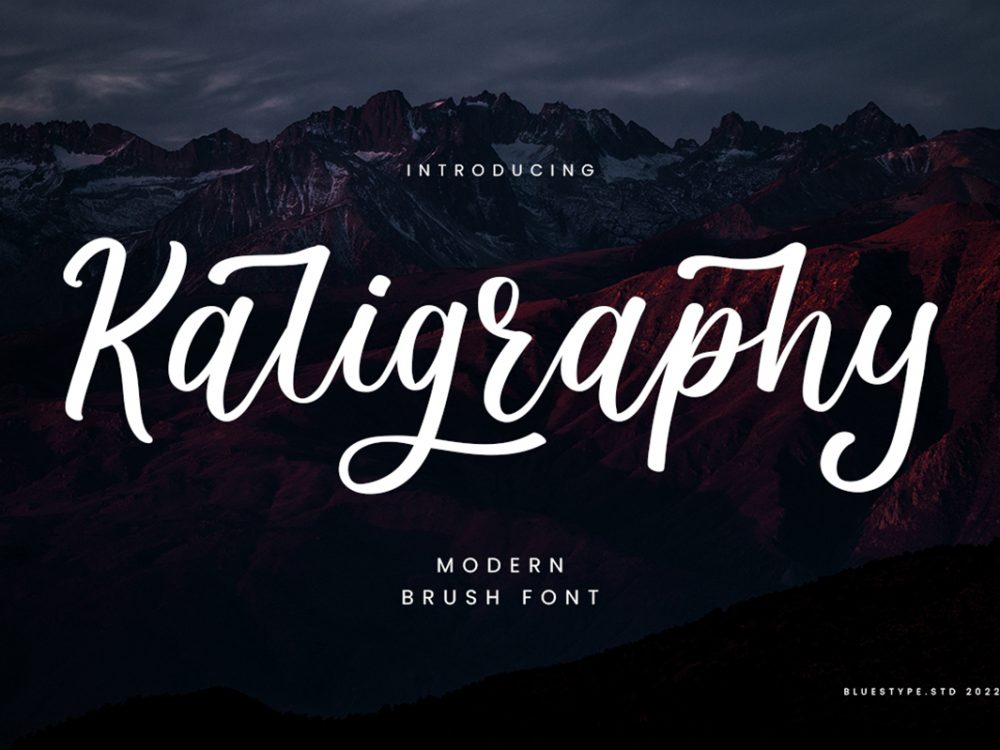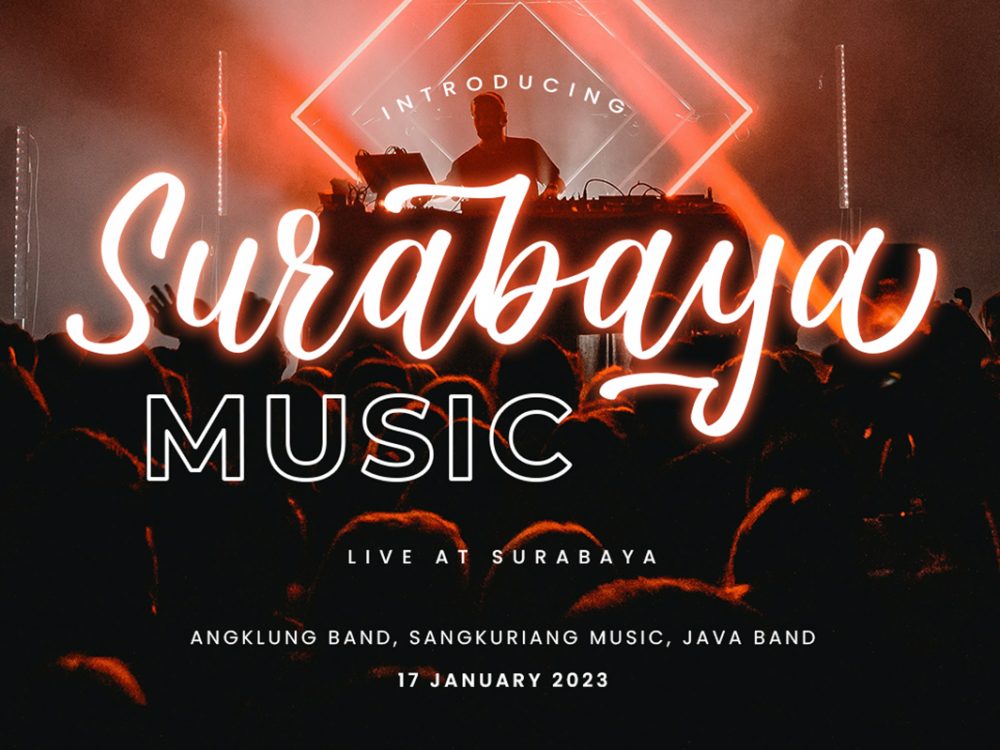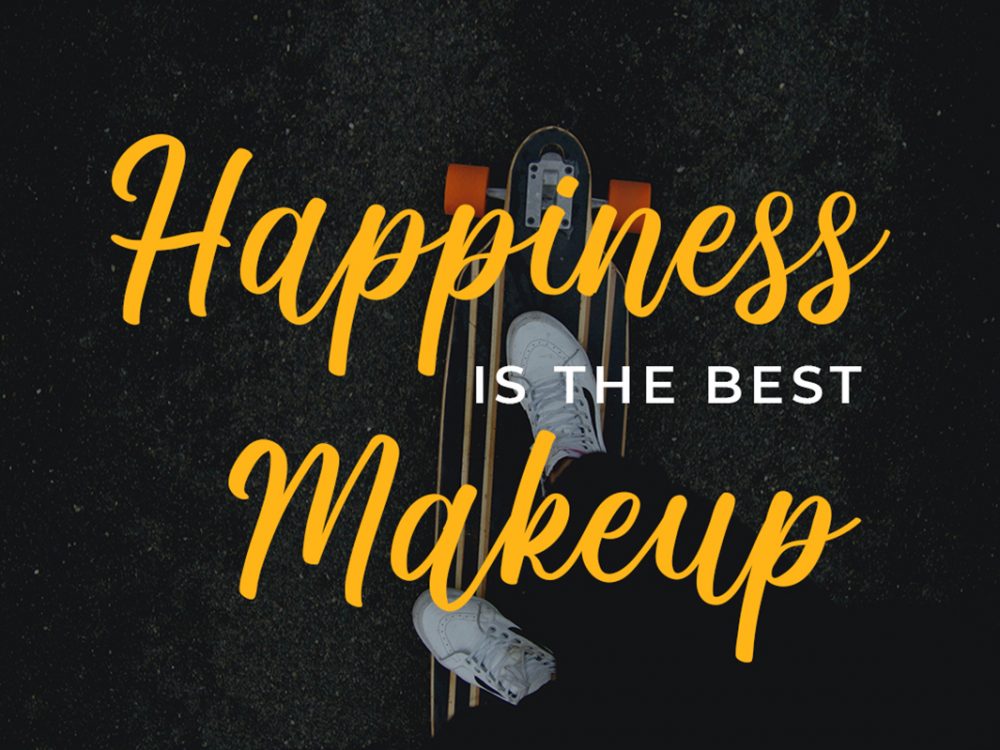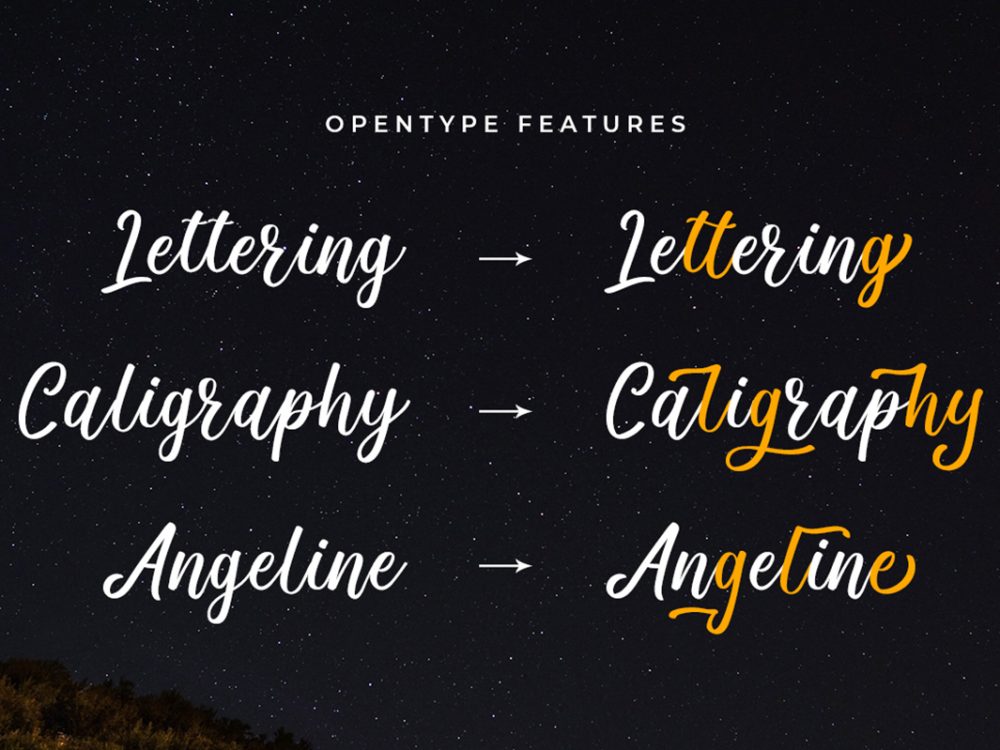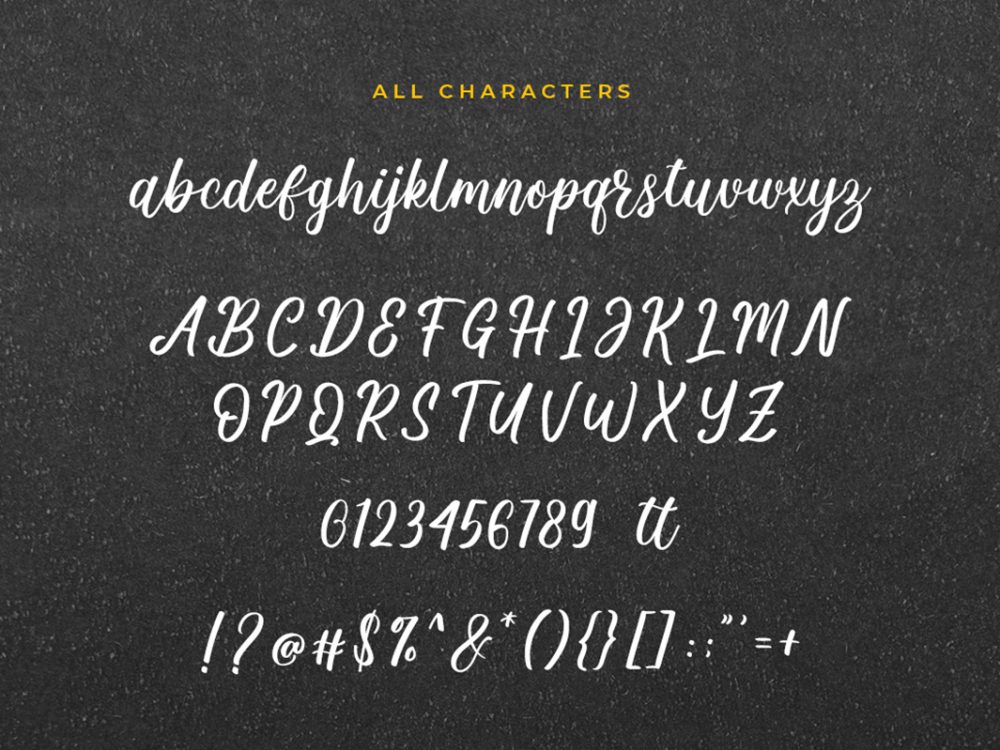
Kaligraphy Free Font
Kaligraphy Free Font is a beautiful handwritten font that simulates detailed brush writing and is very suitable for creating various design projects that require a scripted font. These can be posters, invitations, cards, branding, flyer prints, etc. If you wish to access more features and use them for commercial work please buy the full version.